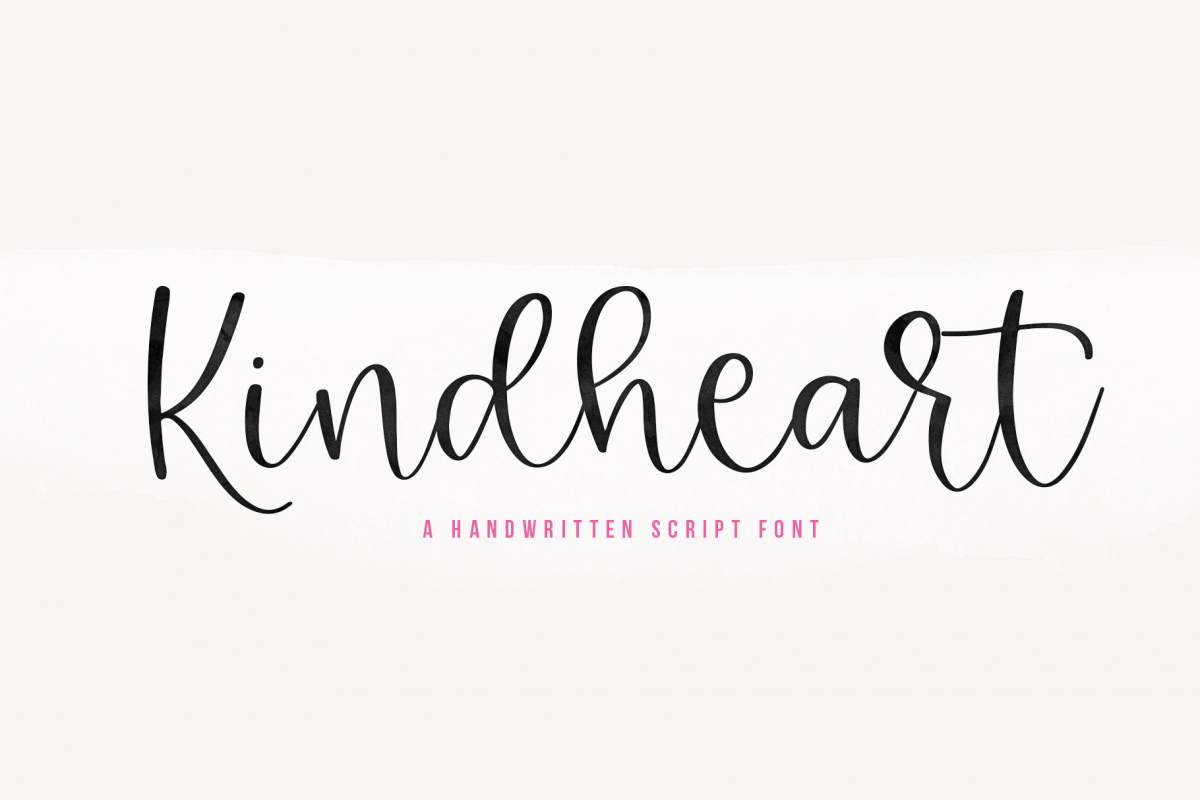
Kindheart - A Handwritten Script Font
Kindheart
Kindheart is a chic handwritten script font!
This font is perfect for quotes, shirt designs, websites, branding, wedding invitations, svg designs,  blogs, logos, invitations and more!